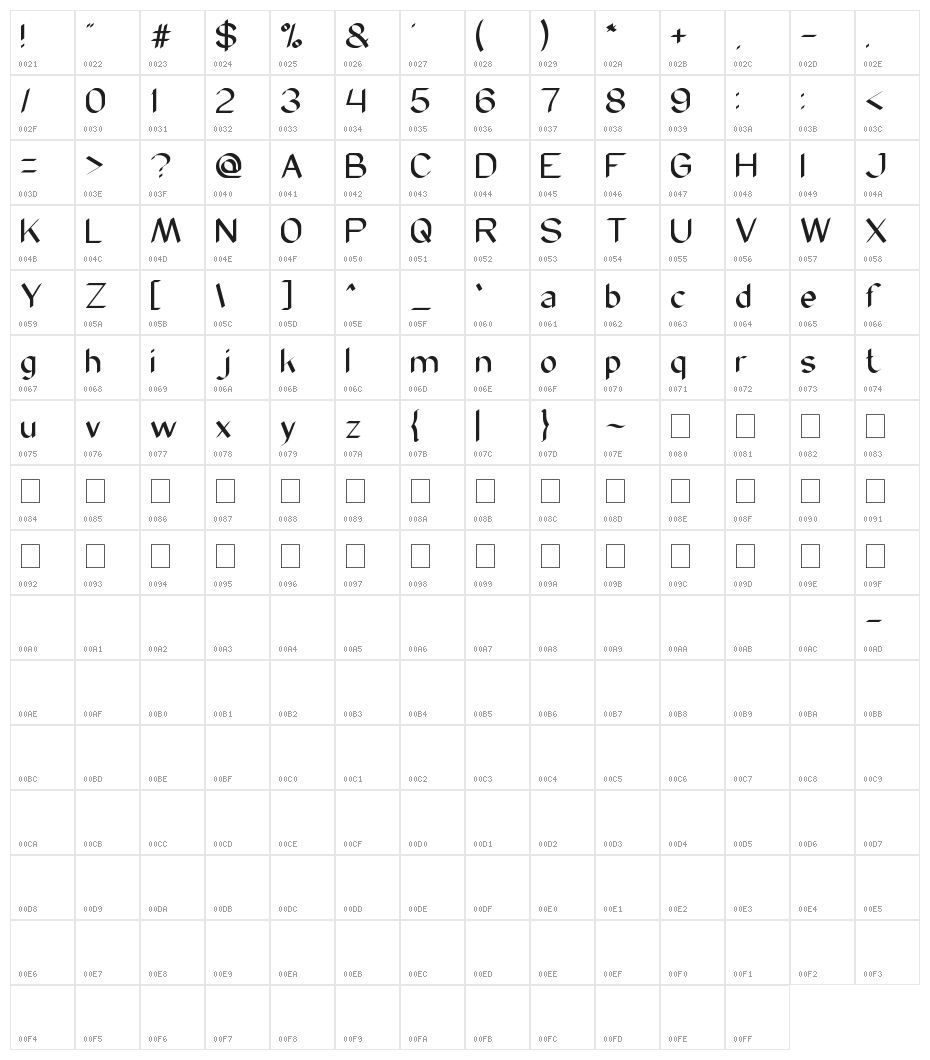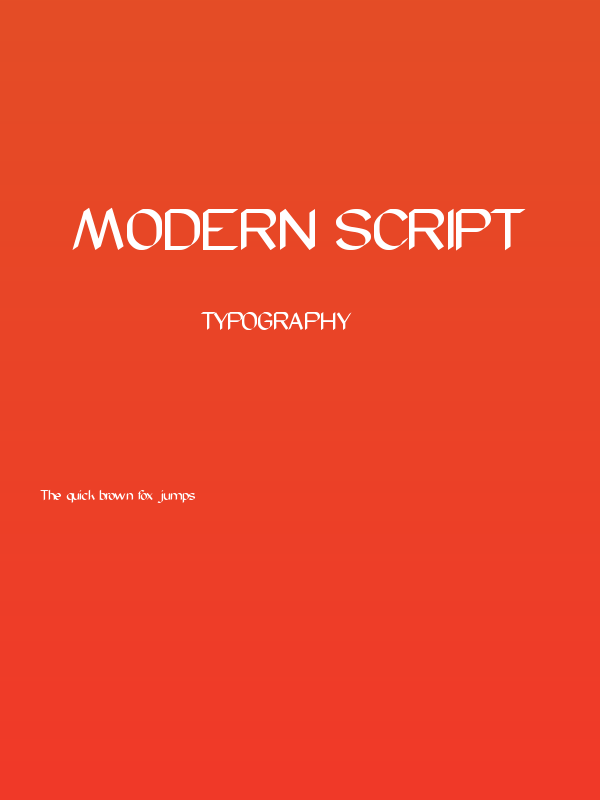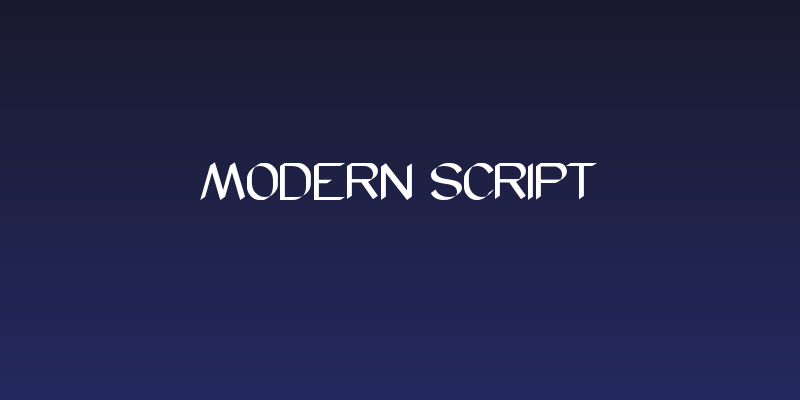
Modern Script Font
Modern Script Description
This font features a modern and sleek design with a unique blend of geometric and angular elements. The uppercase letters are bold and striking, with sharp edges and a futuristic feel. The lowercase characters maintain a consistent style, offering a smooth transition between letters, which enhances readability. Numbers are distinct and align well with the overall aesthetic, while special characters are crafted to match the font's contemporary vibe. The font's design is both innovative and versatile, making it suitable for a variety of creative applications.
MODERN-SCRIPT UPPERCASE
MODERN-SCRIPT LOWERCASE
MODERN-SCRIPT OTHER CHARS
| Use Case | Headlines, Logos, Digital media |
| Proposed Projects | Ideal for branding, advertising, and digital media projects that require a modern and futuristic look. |